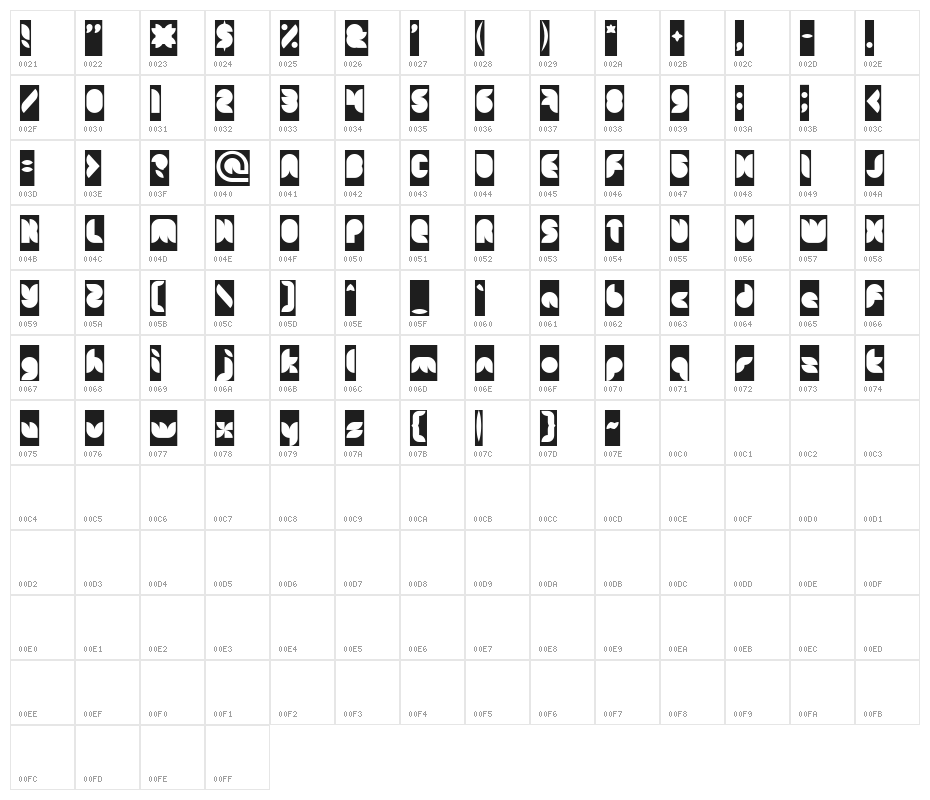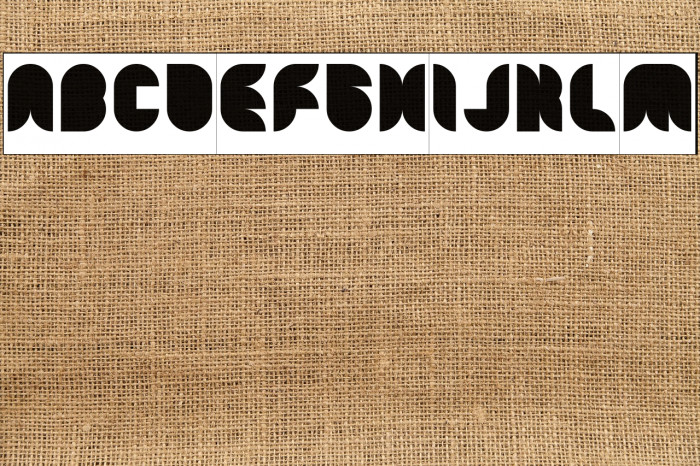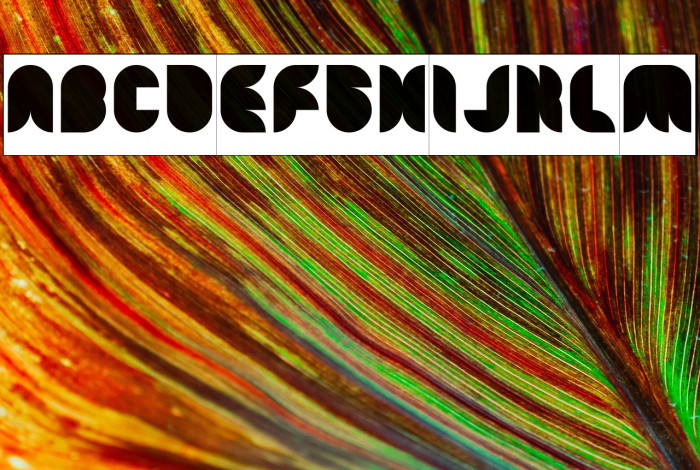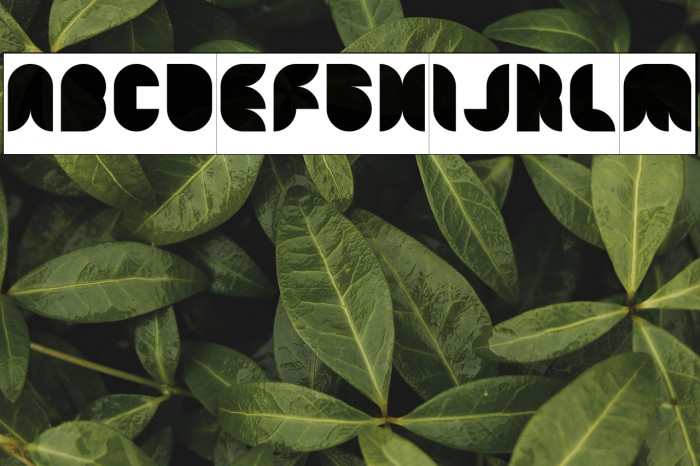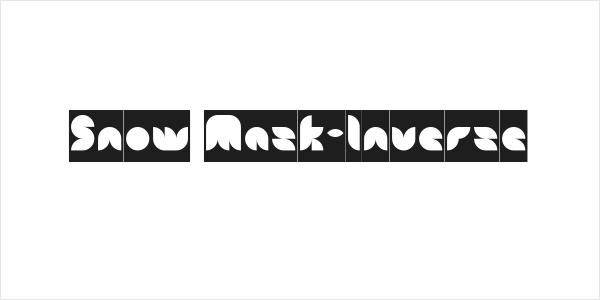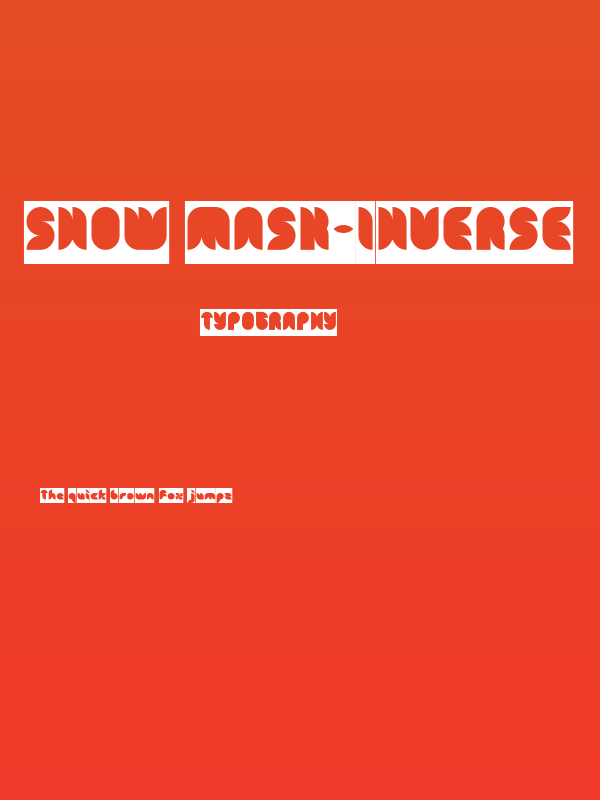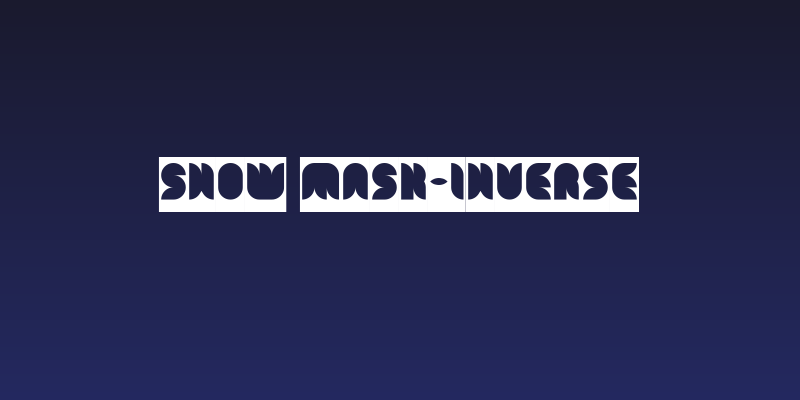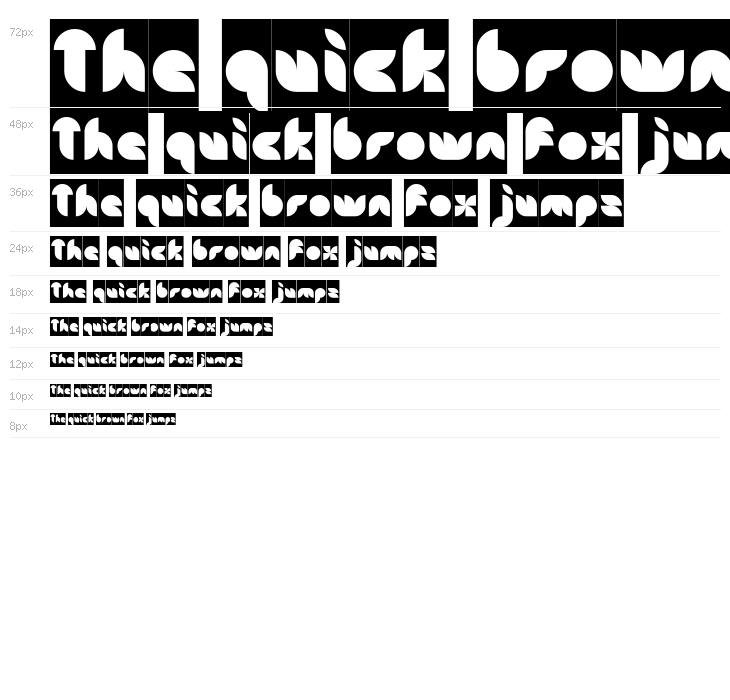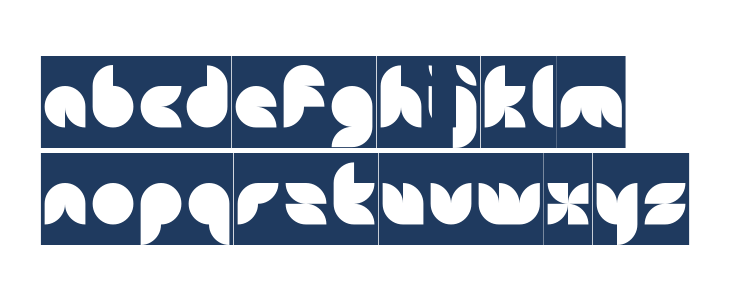
Snow Mask-Inverse Font
Snow Mask-Inverse Description
This font features a bold and striking design with a unique geometric style. Each character is crafted with sharp angles and curves, creating a visually impactful look. The letters are filled with solid white against a black background, enhancing their boldness and making them stand out. The font's design is reminiscent of stencil or cut-out styles, with certain parts of each character removed to create an artistic and modern appearance. This font is perfect for projects that require a strong visual statement, such as posters, logos, or branding materials. Its distinct style ensures that any text will capture attention and convey a sense of modernity and creativity.
| Proposed Projects | Ideal for posters, logos, branding, and any project needing a strong visual impact. |